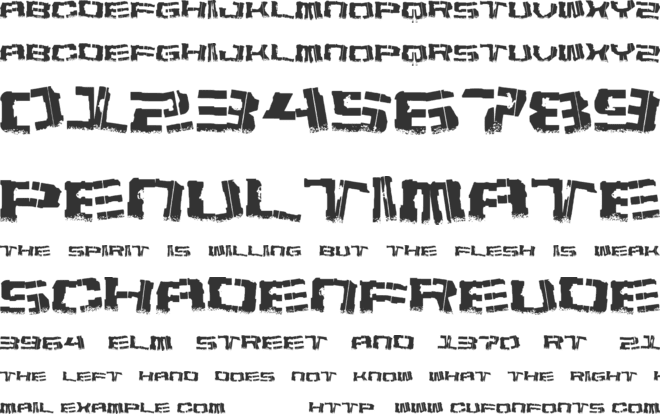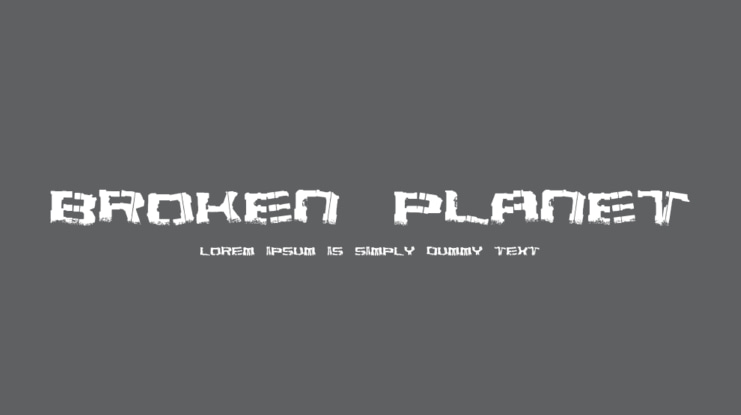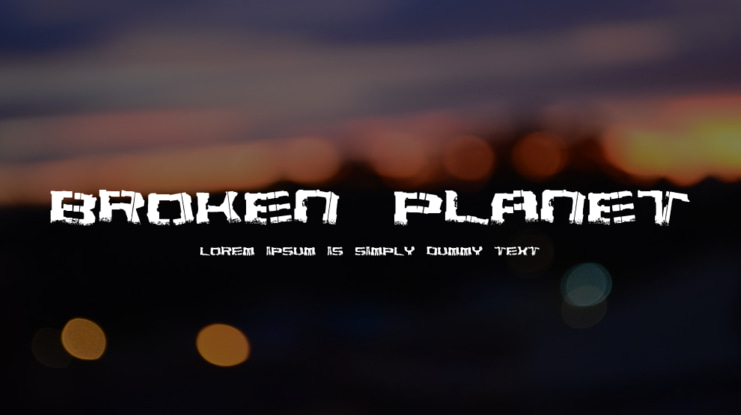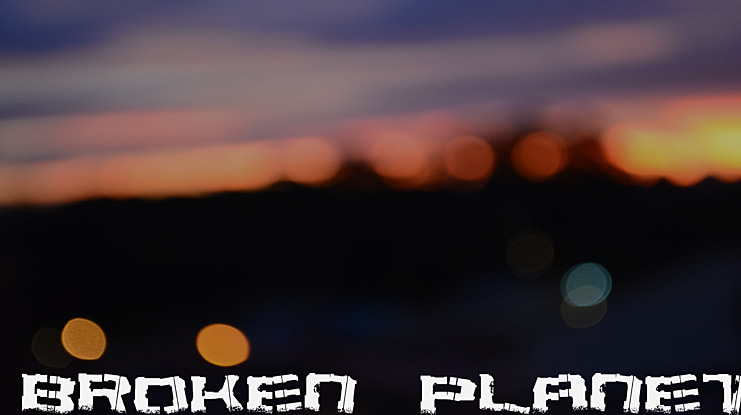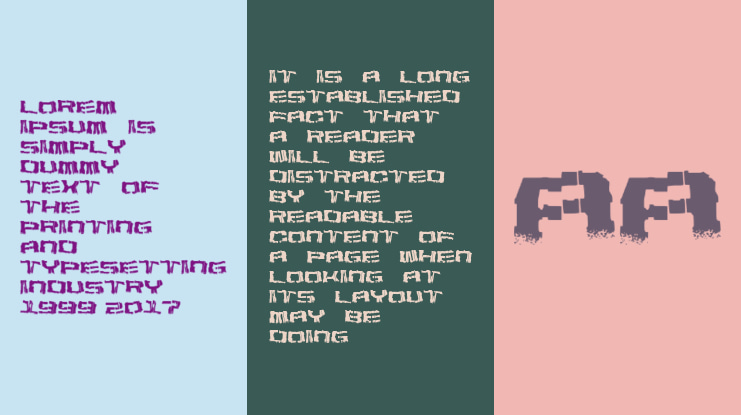
Broken Planet Font
S. Evans
A bold but broken font, looking for its home planet somewhere out there in the universe. (Change the appearance of the letters by using WordArt inside a Word document.)